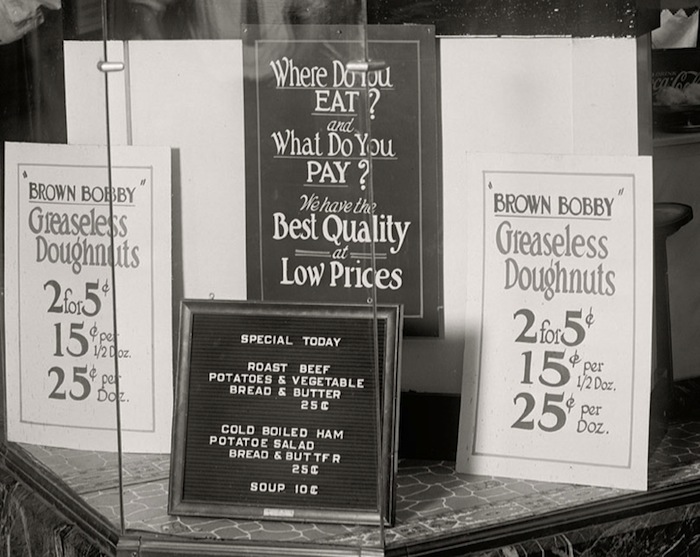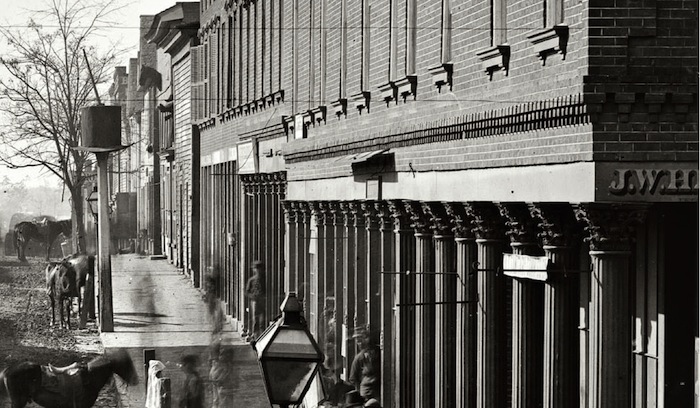
old photo
This photo was forwarded to me by Mr. Oatis several weeks ago....
is another of the great photos from shorpy. They have large sections of pictures tinted in photoshop by folks just for the sake/love of doing it. You could easily spend an hour just scrolling through all the signs here.
That is magnificent. How great is that?
The colors really... well... color it, as the street is alive...
Yup, I too have been rolling in the Shorpy archives. There are some wonderful signs here and there, and in very hi-rez. But the only way to really go through it would be to split up the dates and have everyone do a couple of months, then post a list of what they think are good. Is anybody interested?
Here are some little bits from pictures I have seen:
Check out the giant hat, and the horse's head (a saddlery?). And on the right corner some painted letters
complete with painted returns and shadows, as good as they were doing in London. This is Atlanta, GA, 1864.
wow. This is really extraordinary. It really takes you straight into a world 100 years ago. Seeing these old streetscapes them in black and white is great, but seeing color....you suddenly realize the scale of the industry doing hand-crafted and gilded signs. The entire ambience of the city and especially the mercantile sector is dominated my hand-crafted signs
So much has been lost. Here is proof of an cultural and artistic epoch built around the art of the sign. Highly visible to all with wide recognition and appreciation by both business owners and the general public.
How can it be that these days, after only a couple of generations, most people have no knowledge or understanding of it's place in history, have never seen anyone hand-lettering and wouldn't recognize gold leaf if they fell over it? How sad that our cultural institutions and musuems have mostly ignored out art. Compared to other less significant art movements, it has been virtually ignored. It has hardly been studied, analyzed by researchers, discussed or protected.
At least through these photos, we can have a real understanding of the tradition we are building upon.